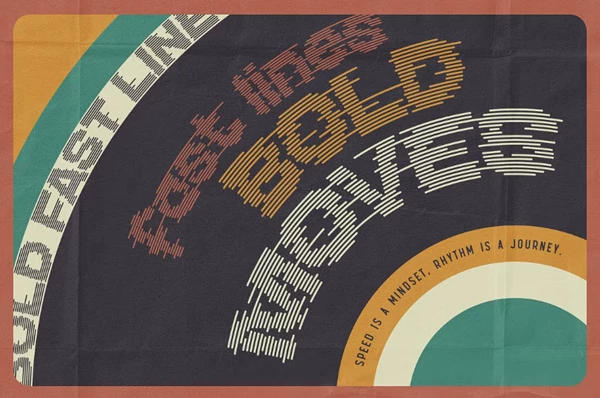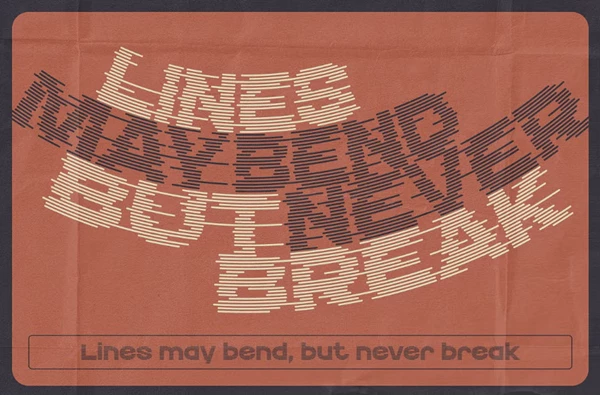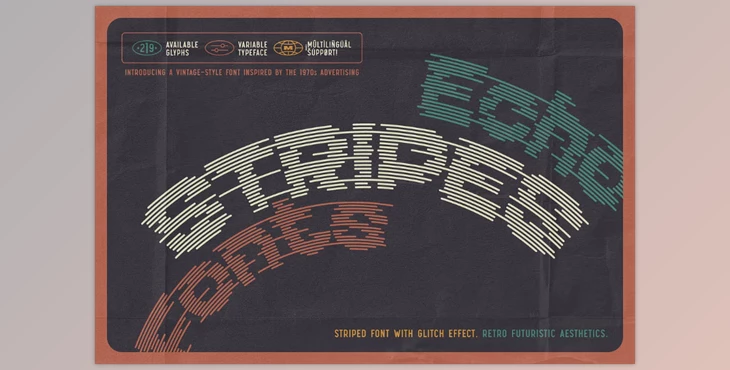
Echo Stripes - Variable Font Set:
The Echo Stripes is a one-of-a-kind grotesque sans-serif font set. Created with horizontal glitch lines, Echo Stripes offered designers a wide range of distortion from mild to extreme sculpting via its variable type feature. This is an ideal font for people looking to achieve bold and modern turns in their designs.
"Echo Stripes - Variable Font Set" Samples: